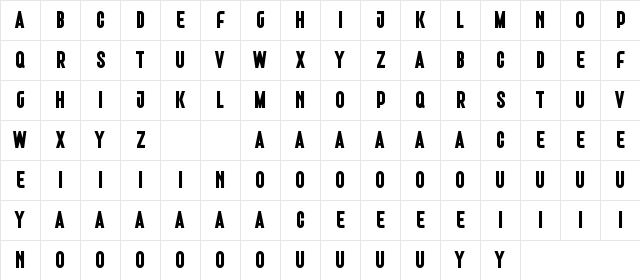
Divergentes Regular Free Font
Divergentes Regular
Foundry: Trequartista Studio
Designer: Muhammad Afif Ersya
Design Context for Divergentes
Divergentes is a composed and adaptable typeface that performs quietly and consistently across a wide range of design contexts.
Pro Tip: Use Divergentes in both headline and body roles to test its range before committing to a single application.